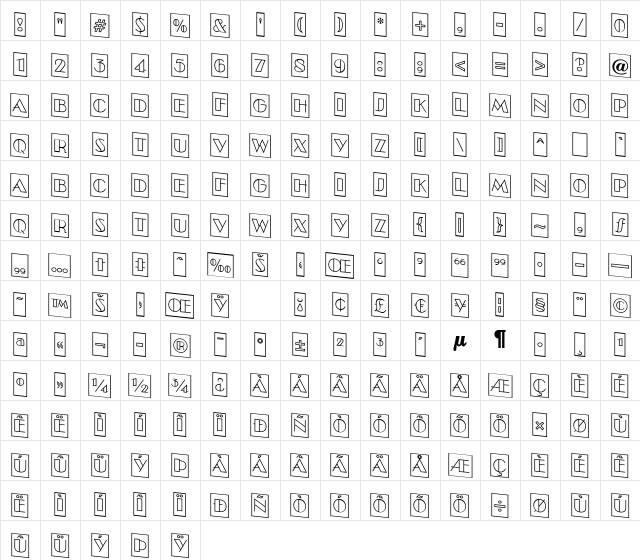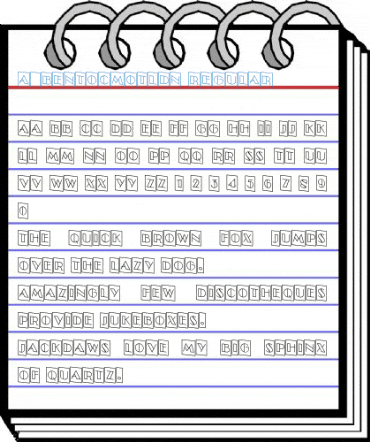
a_BentoCmOtlDn Regular Free Font
a_BentoCmOtlDn Regular
Designer: W.Chufarofsky & M.Slutsker
Design Context for a_BentoCmOtlDn
a_BentoCmOtlDn is a composed and adaptable typeface that performs quietly and consistently across a wide range of design contexts.